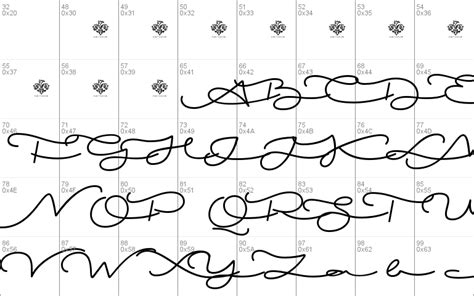
Mi Amor Font. Mi amor is a fully cursive. Web mi amor | fonts.com.
For full version and license please visit. Overview mi amor is a fully cursive monoline handwriting script font. Web mi amor | fonts.com. ← back to family page. Mi amor is a fully cursive. Web mi amor demo is a demo version of a cursive handwriting font.
Web mi amor | fonts.com. Mi amor is a fully cursive. For full version and license please visit. ← back to family page. Overview mi amor is a fully cursive monoline handwriting script font. Web mi amor | fonts.com. Web mi amor demo is a demo version of a cursive handwriting font.